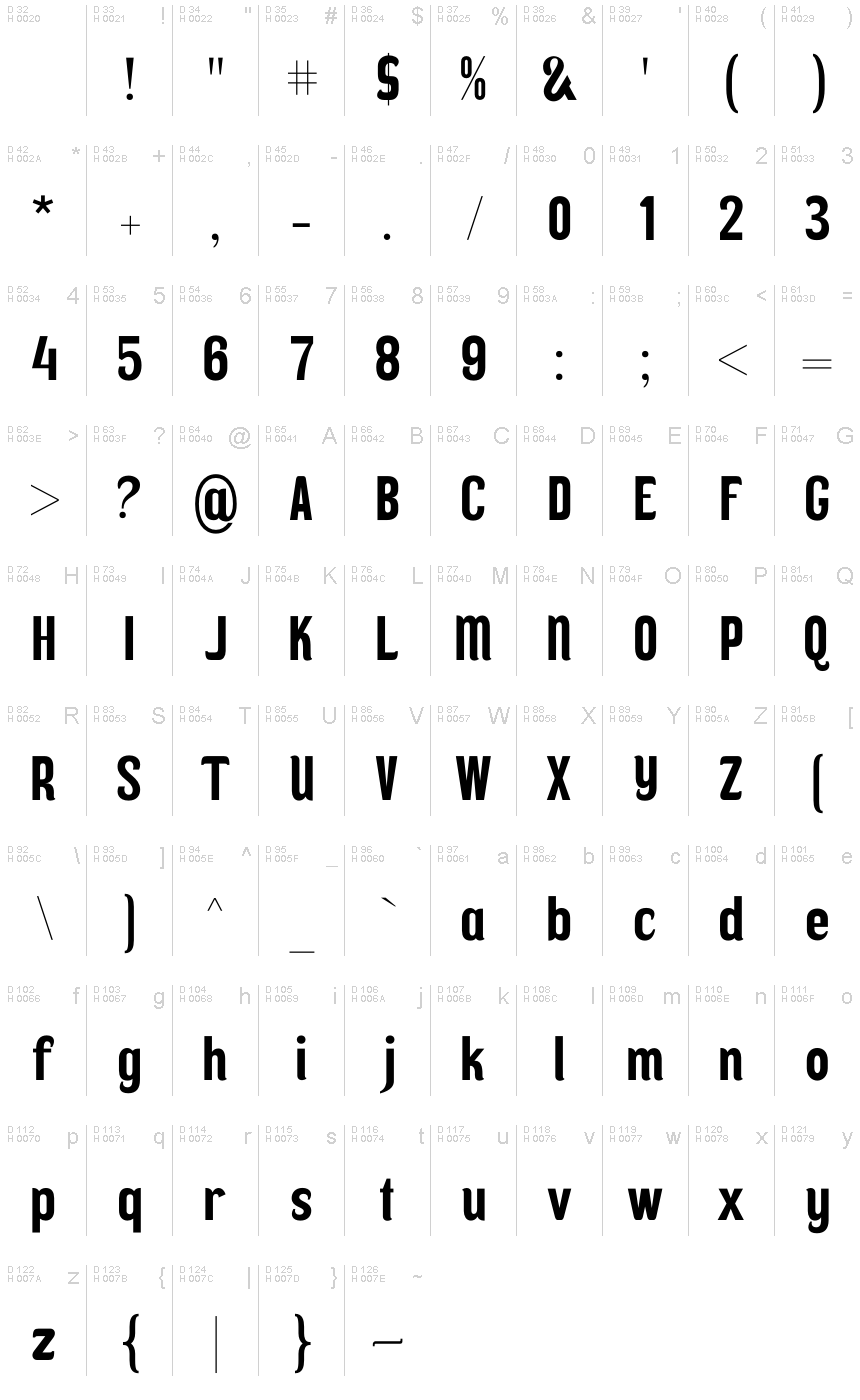
Rublack
Rublack is a bold, condensed font that exudes a captivating blend of strength and elegance. Crafted by the talented team at Storytype Studio, this typeface commands attention with its striking letterforms and robust presence. The bold weight and condensed width lend Rublack a sense of power and authority, making it an ideal choice for headlines, branding, and eye-catching display text.
The font's unique design features, such as the sharp, angular terminals and the subtly curved strokes, contribute to its modern, yet timeless aesthetic. Rublack's versatility shines through, allowing it to seamlessly integrate into a wide range of design projects, from editorial layouts and packaging to digital interfaces and signage. Its bold, condensed nature makes it a standout choice for creating impactful, attention-grabbing compositions.